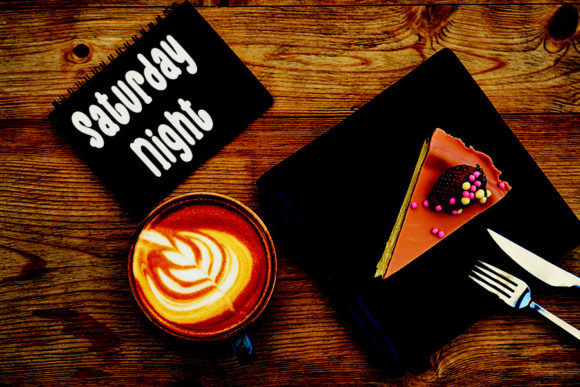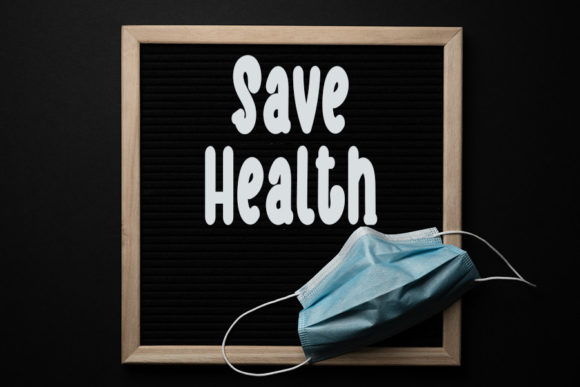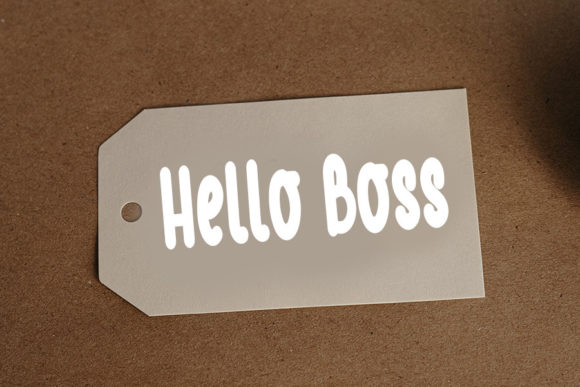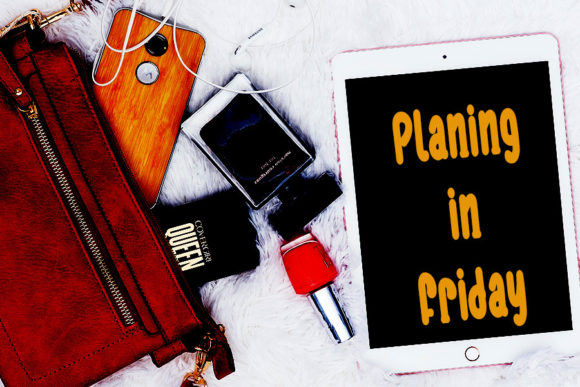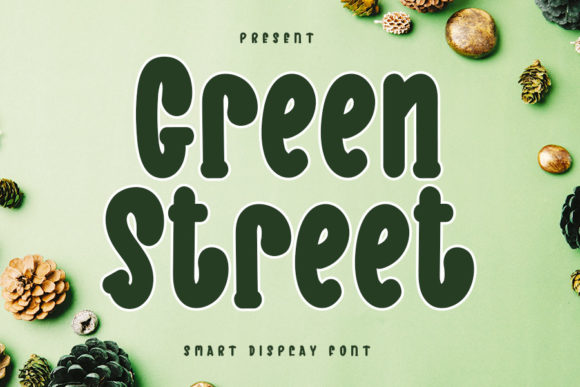
Introducing Green Street Font: Elevate Your Designs with Elegance and Class
In the world of design, typography plays a crucial role in conveying the tone and aesthetic of a project. For those seeking a font that embodies elegance and sophistication, Green Street Font is an exceptional choice. This lovely and delicate handwritten font is specifically crafted to add a touch of refinement and freshness to various designs, making it perfect for creative professionals and crafters alike.
The Characteristics of Green Street Font
Green Street Font boasts a unique, handwritten style that exudes a sense of luxury and poise. Its delicate strokes and carefully crafted letterforms make it an ideal choice for designs that require a high level of sophistication. The font’s elegant appearance is versatile enough to be used across a wide range of applications, from formal invitations to product packaging, and from quotes to logos and branding.
Uses of Green Street Font
The versatility of Green Street Font makes it suitable for various design projects, including:
- Invitations: Whether it’s a wedding invitation, a birthday party invite, or any other special occasion, Green Street Font adds a touch of class and sophistication.
- Product Packaging: Elevate your product’s visual appeal with this elegant font, making it stand out on store shelves.
- Quotes: Add a touch of inspiration and elegance to your quote designs, perfect for sharing on social media or printing on motivational posters.
- Product Design: From craft labels to product tags, Green Street Font brings a level of refinement that enhances the overall design.
- Crafter: Ideal for crafters who want to add a professional touch to their handmade products, such as knitted items, jewelry, or artisanal foods.
- Labels: Create beautiful labels for your products, files, or any other item that needs a personal touch.
- Photography: Use Green Street Font for watermarks or photo captions to add an elegant touch to your images.
- Logos & Branding: Establish a strong brand identity with a logo that incorporates this sophisticated font, suitable for boutiques, salons, and other businesses aiming for an upscale image.
Why Choose Green Street Font?
There are several reasons why Green Street Font stands out from other typefaces:
- Elegance: Its delicate and sophisticated design makes it perfect for projects that require a touch of class.
- Versatility: Suitable for a wide range of design applications, from digital to print.
- Readability: Despite its elegant and delicate nature, Green Street Font remains highly readable, even at smaller sizes.
- Uniqueness: Stands out from more commonly used fonts, giving your designs a distinctive look.
Tips for Using Green Street Font Effectively
To maximize the impact of Green Street Font in your designs:
- Pair with Complementary Fonts: Combine Green Street Font with simpler sans-serif fonts for contrast and visual interest.
- Adjust Line Spacing: Ensure adequate line spacing to maintain readability and flow.
- Limit Text Blocks: Use Green Street Font for shorter text blocks or headings to maximize its impact.
- Play with Colors: Experiment with different colors to find the perfect match that enhances the elegance of the font.
Green Street Font is a versatile and elegant typeface that can elevate a wide range of design projects. Its delicate and sophisticated appearance makes it perfect for designers and crafters looking to add a touch of class and refinement to their work. Whether you’re creating invitations, product packaging, or branding materials, Green Street Font is an excellent choice for those seeking a unique and beautiful handwritten font.
Discover the elegance of Green Street Font and bring a new level of sophistication to your designs.